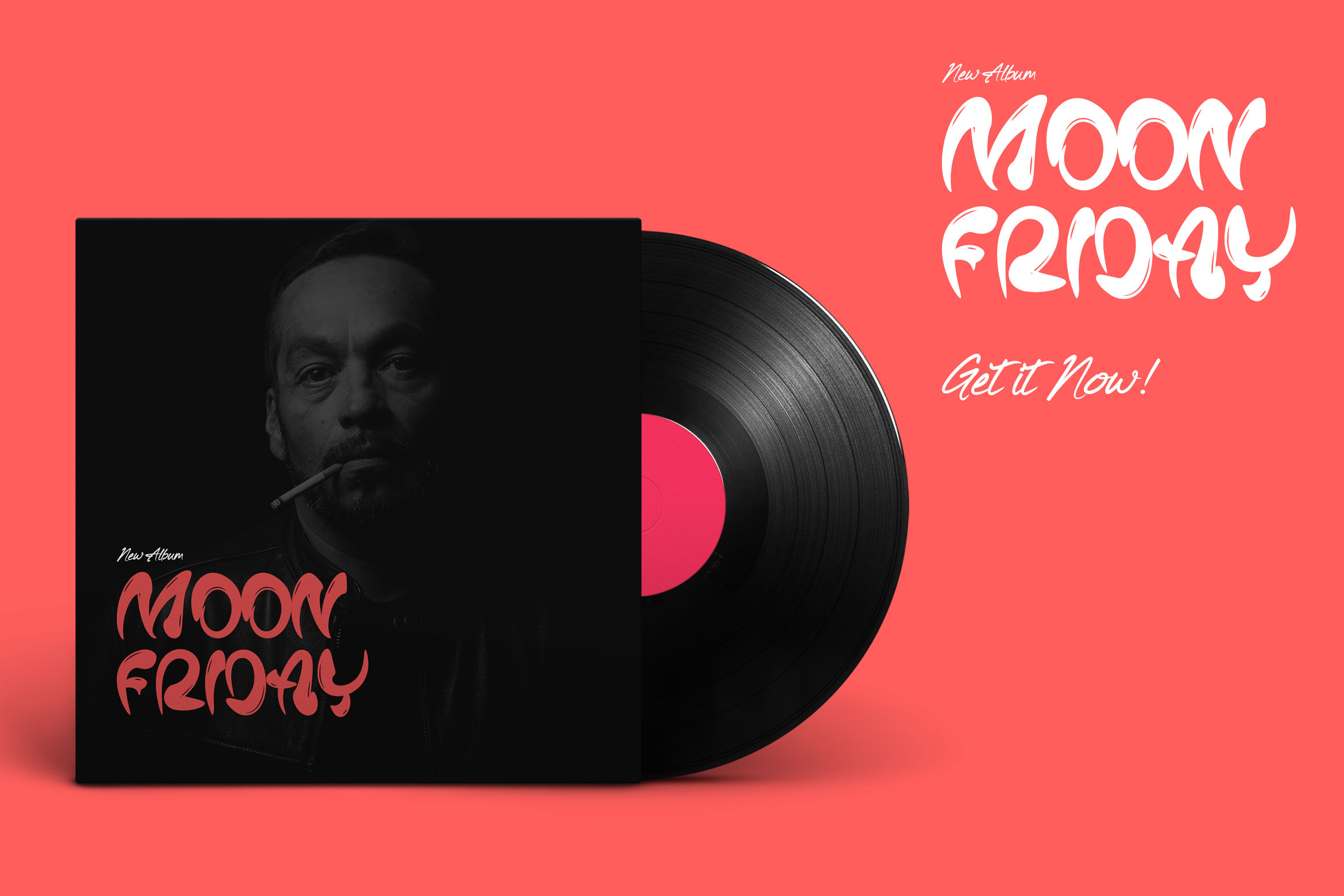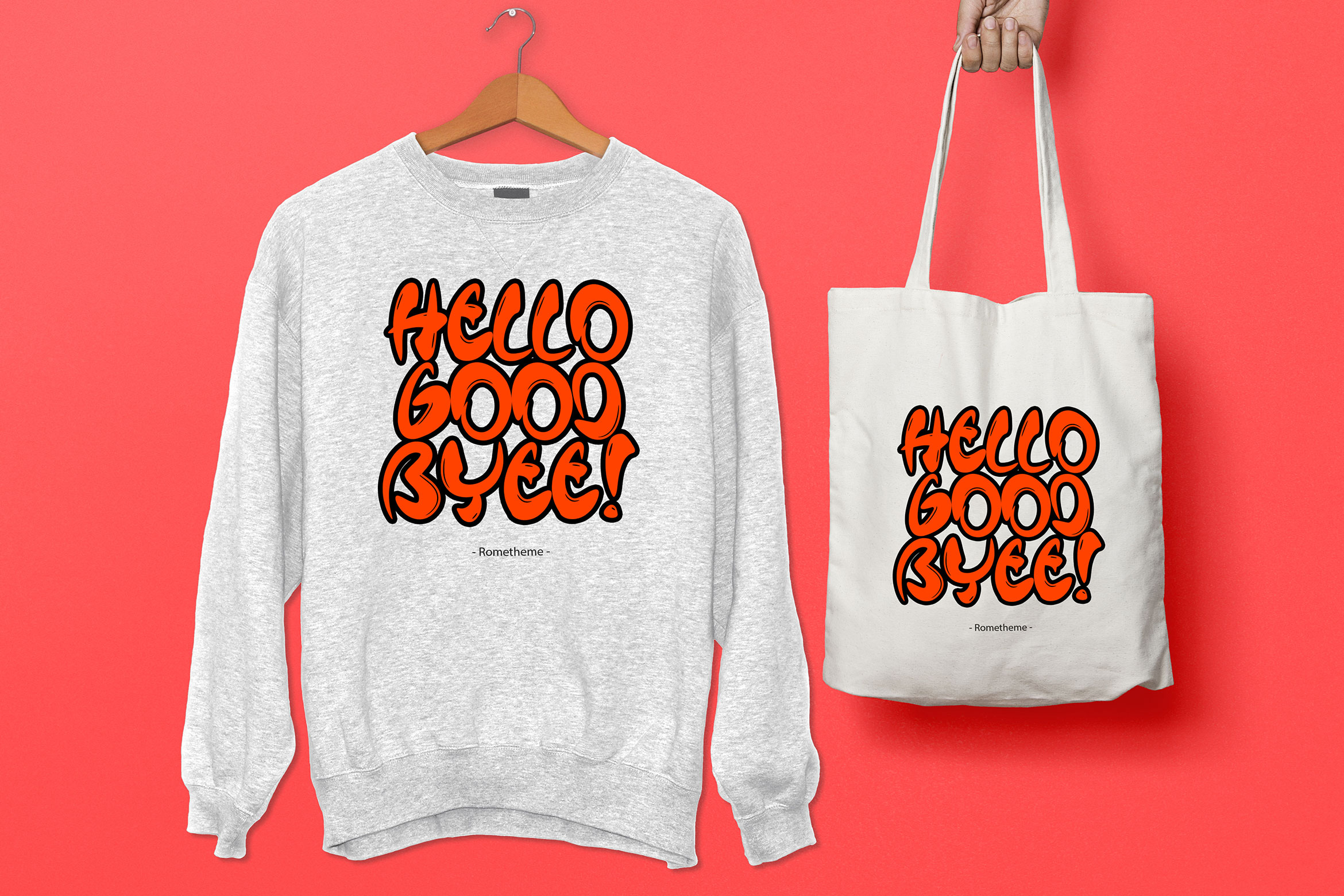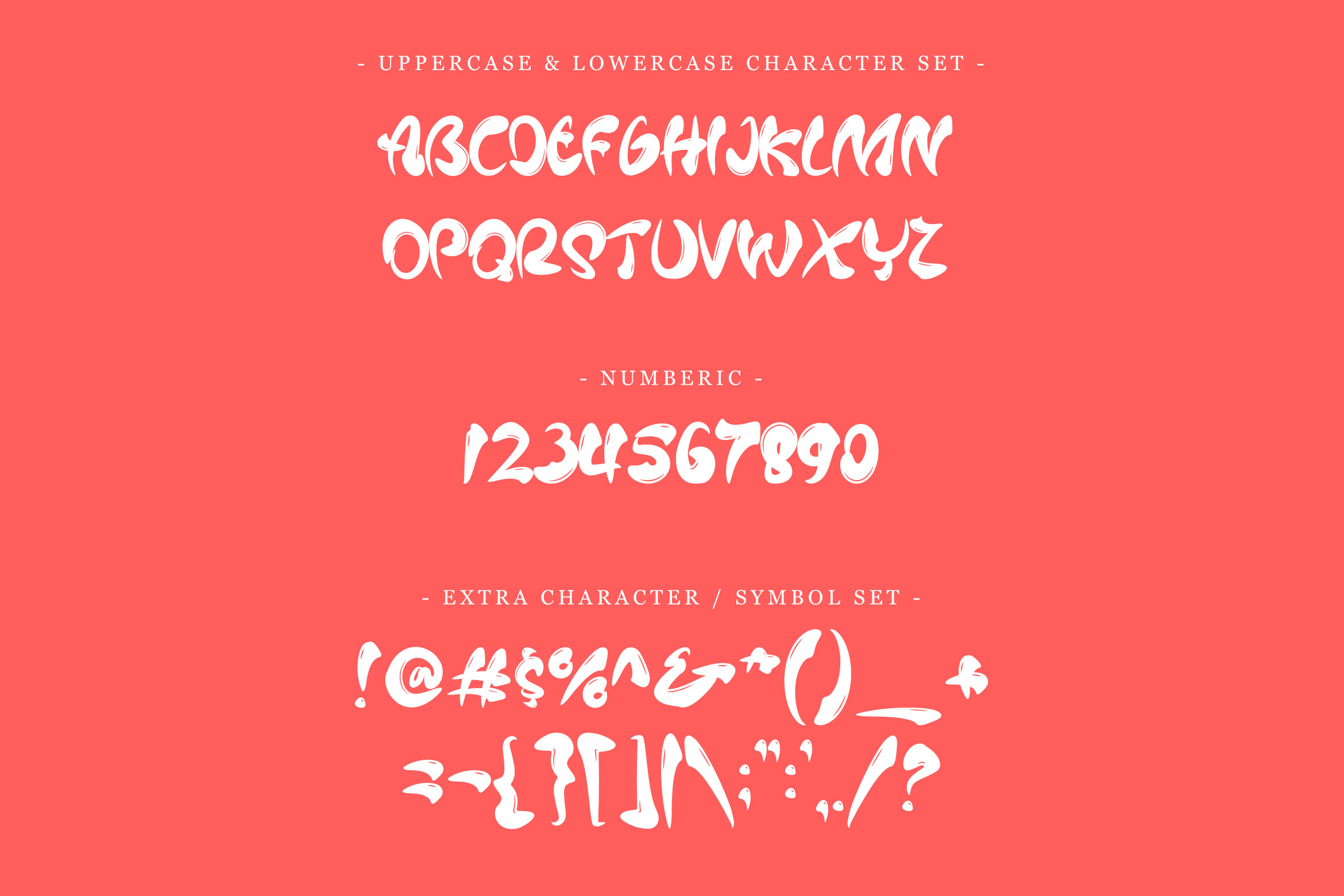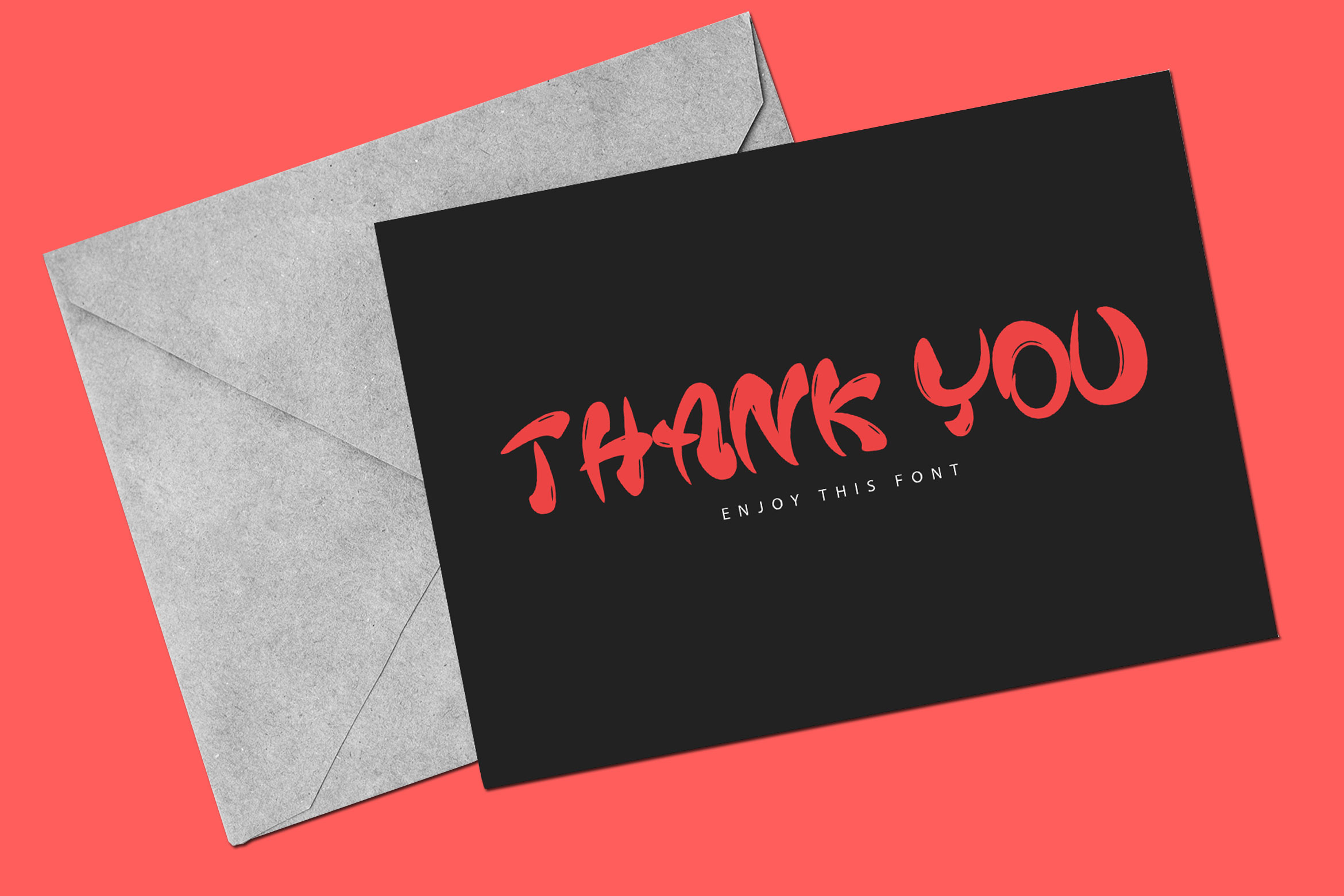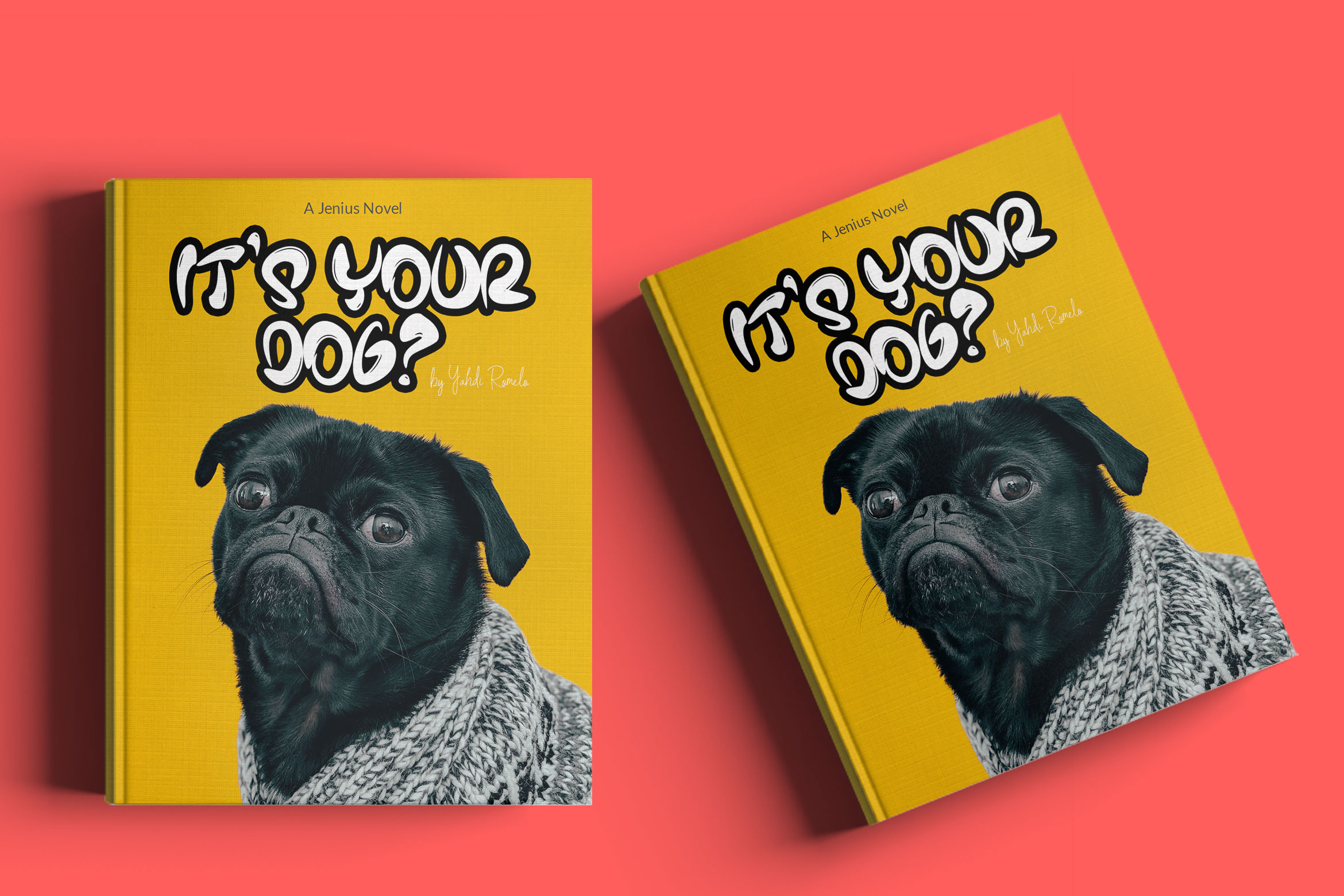
Introduction to Mafieso Font Font
Fonts play a crucial role in design, and the Mafieso Font font is a typeface that brings both character and versatility to any project. Whether you’re working on a branding project, a website, or a print design, the Mafieso Font font offers a unique style that can elevate your work.
Mafieso is a fun, playful display font created for a large range of different designs.
It features a sweet, cute style with bold letters, that will help you with getting your message across .
Key Features of Mafieso Font Font
Why Choose Mafieso Font Font?
The Mafieso Font font is more than just a typeface – it’s a design tool that helps you communicate your message with style and clarity. Its unique character set and versatile design make it suitable for a wide range of applications, from elegant invitations to bold headlines.
With its carefully crafted letterforms and balanced proportions, the Mafieso Font font ensures readability and visual appeal across all mediums.
What makes Mafieso Font font special?
The Mafieso Font font stands out with its unique design, exceptional readability, and versatility across various design applications.